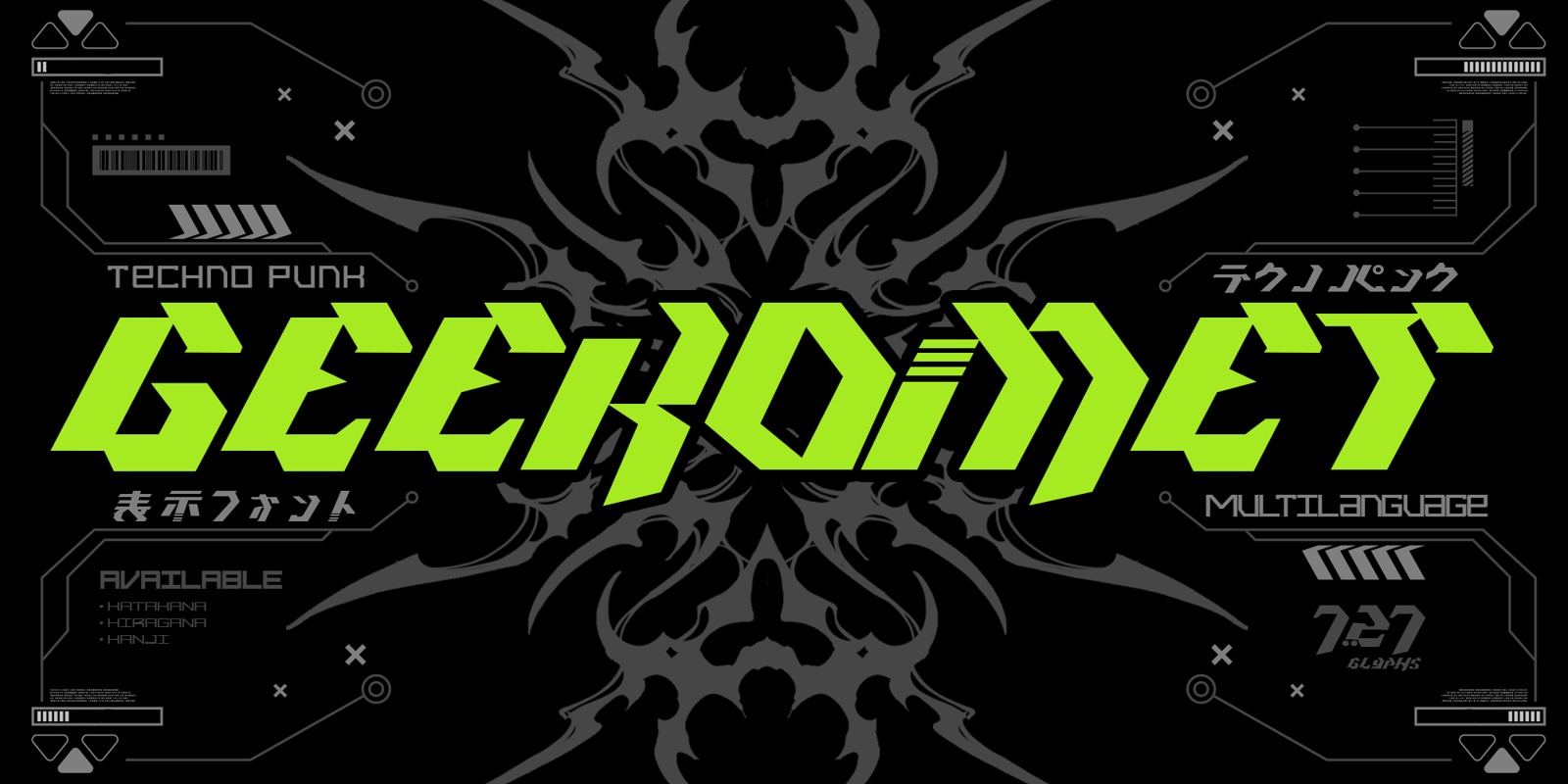
Geekomet – Techno Diplay Font
Geekomet – Techno Diplay Font is a futuristic Techno Punk display font inspired by cyberpunk culture, sci-fi technology, mecha design, and digital interfaces. Its sharp geometric forms, angular cuts, and industrial aesthetic create a bold visual impact that is perfect for logos, branding, gaming, posters, album covers, apparel, UI concepts, and technology-driven creative projects. Beyond its distinctive Latin characters, Geekomet expands your creative possibilities with complete Hiragana, complete Katakana, and 300 carefully selected Kanji glyphs, making it ideal for Japanese-inspired branding and futuristic visual design. Whether you’re building a neon city identity, a sci-fi game title, or high-tech merchandise, Geekomet delivers a unique balance of modern precision and cyberpunk attitude, helping every project stand out with a strong, unmistakable personality.